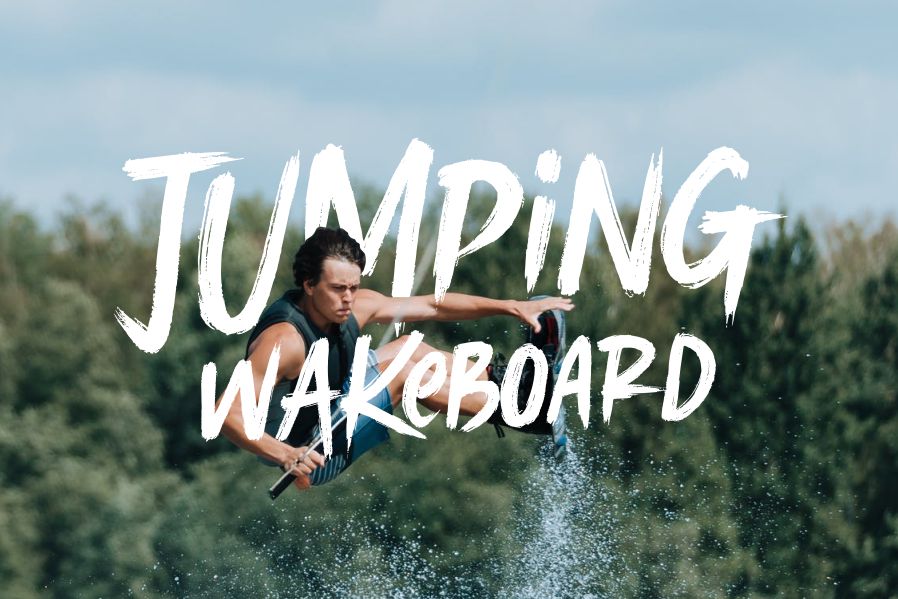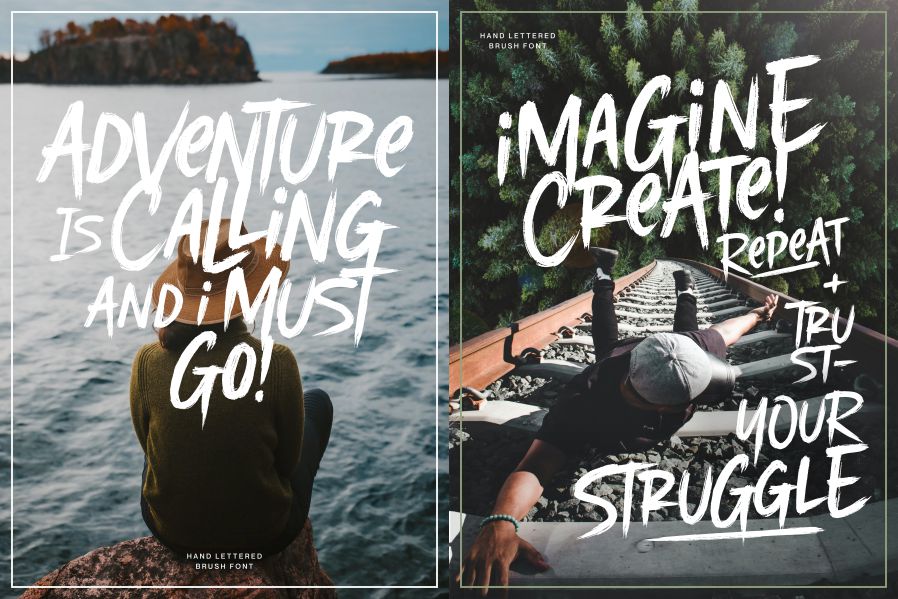
Moviecal Font
Moviecal Brush Font
It’s a cool, brushed display font. It works on a variety of labels, posters or pretty much anything tat requires an urban, street touch.